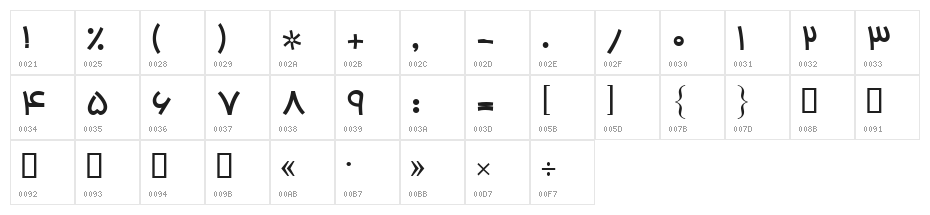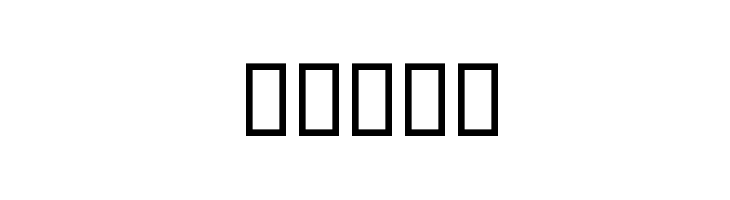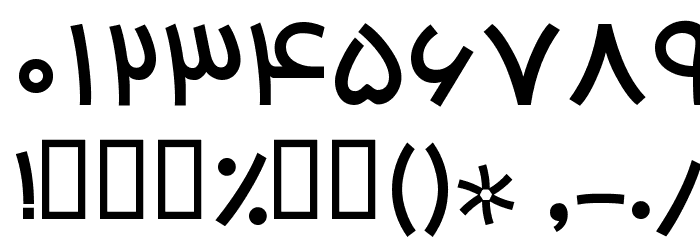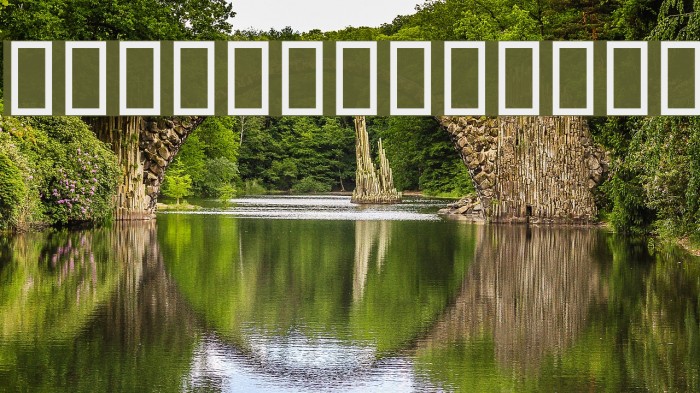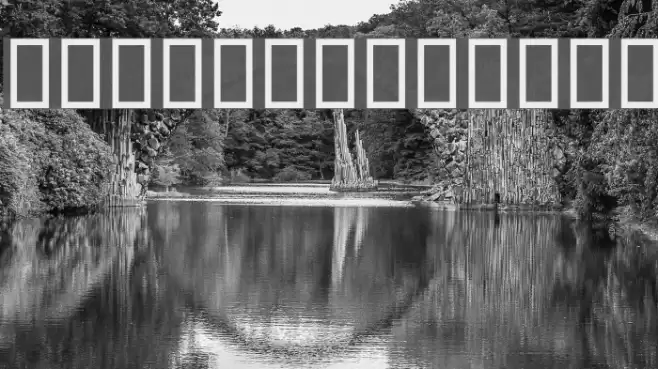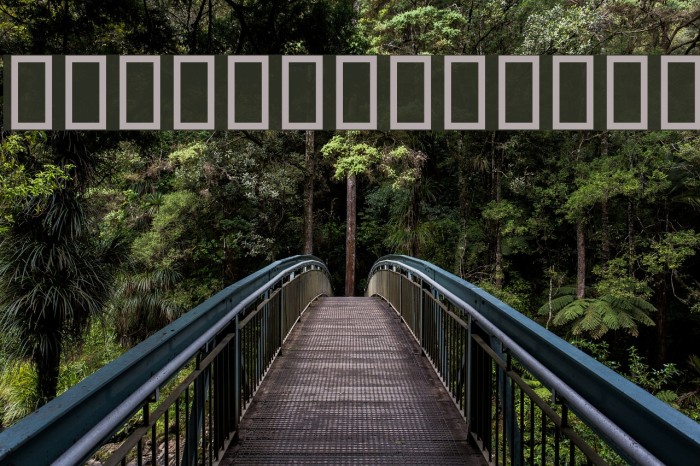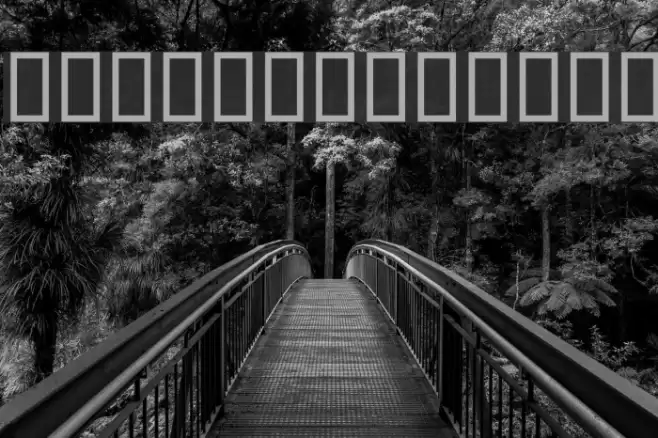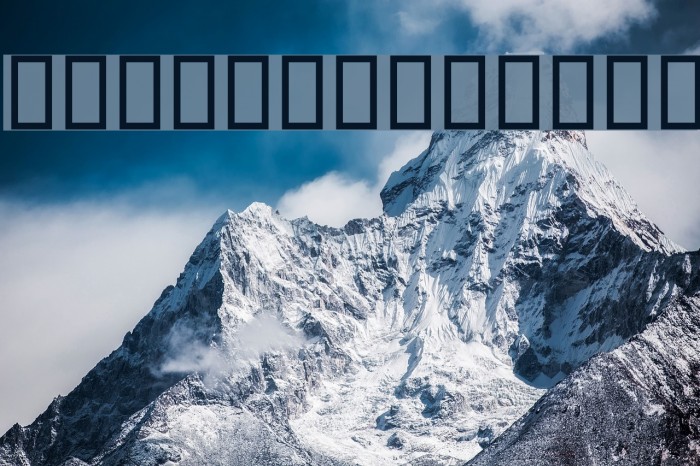
Homaa Font
Homaa Description
This font features a unique and bold design with a strong presence. The characters are crafted with thick strokes and a slightly rounded appearance, giving them a modern yet approachable feel. The numerals and special characters maintain the same boldness, ensuring consistency across all elements. The font's style is highly distinctive, making it suitable for projects that require a strong visual impact. Its bold nature and clear legibility make it ideal for headlines or titles where attention is paramount. The overall design is modern and slightly playful, with a touch of geometric influence.
| Proposed Projects | Ideal for branding, advertising, poster design, and any project requiring a strong visual impact. |